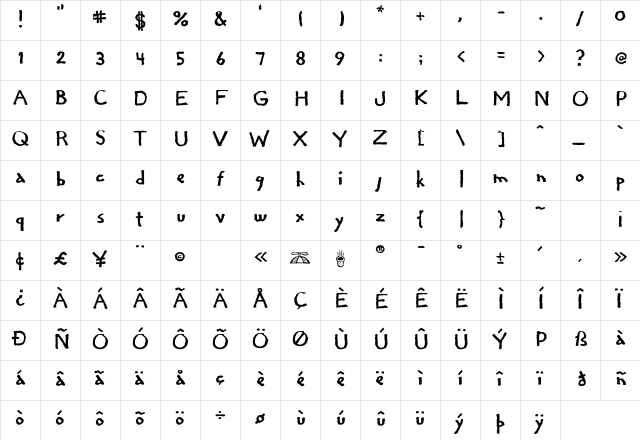
Regular Joe Regular
Design Context for Regular Joe Typeface
Regular Joe is a composed and adaptable typeface that performs quietly and consistently across a wide range of design contexts.
Pro Tip: Use Regular Joe in both headline and body roles to test its range before committing to a single application.